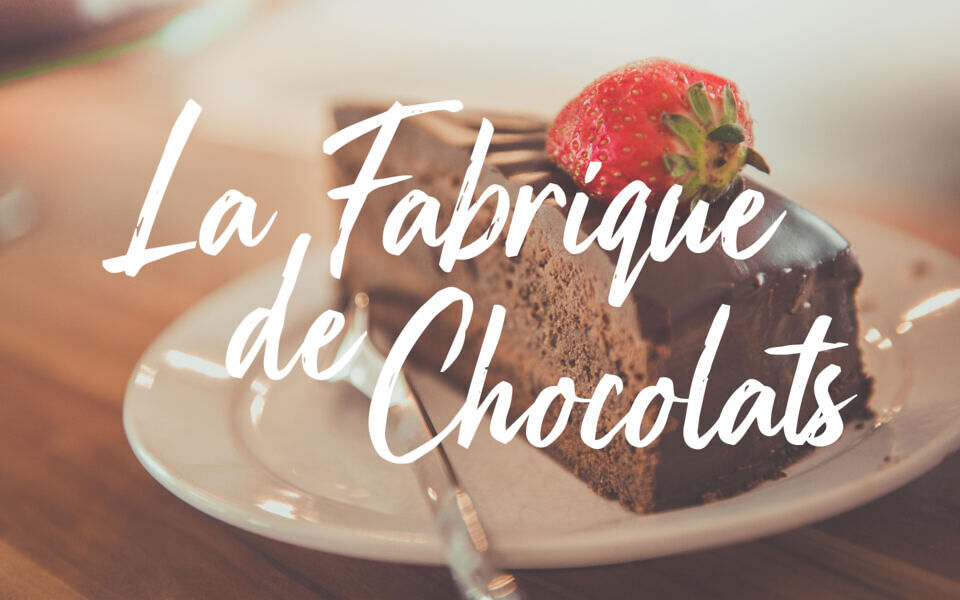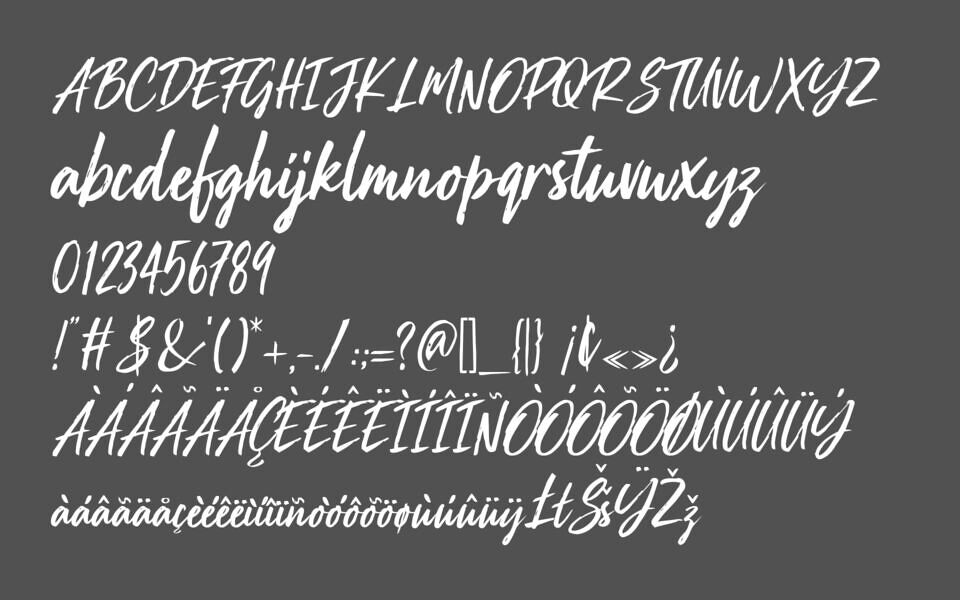
La Fabrique de Chocolats is a stylish script brush font with a handcrafted, fluid look that evokes elegance and sweetness. Its smooth curves and natural strokes give it a warm, artisanal feel—perfect for packaging, branding, posters, and creative projects with a gourmet or chocolate-inspired theme. Designed to feel both modern and expressive, it adds a refined yet playful touch to any visual composition.